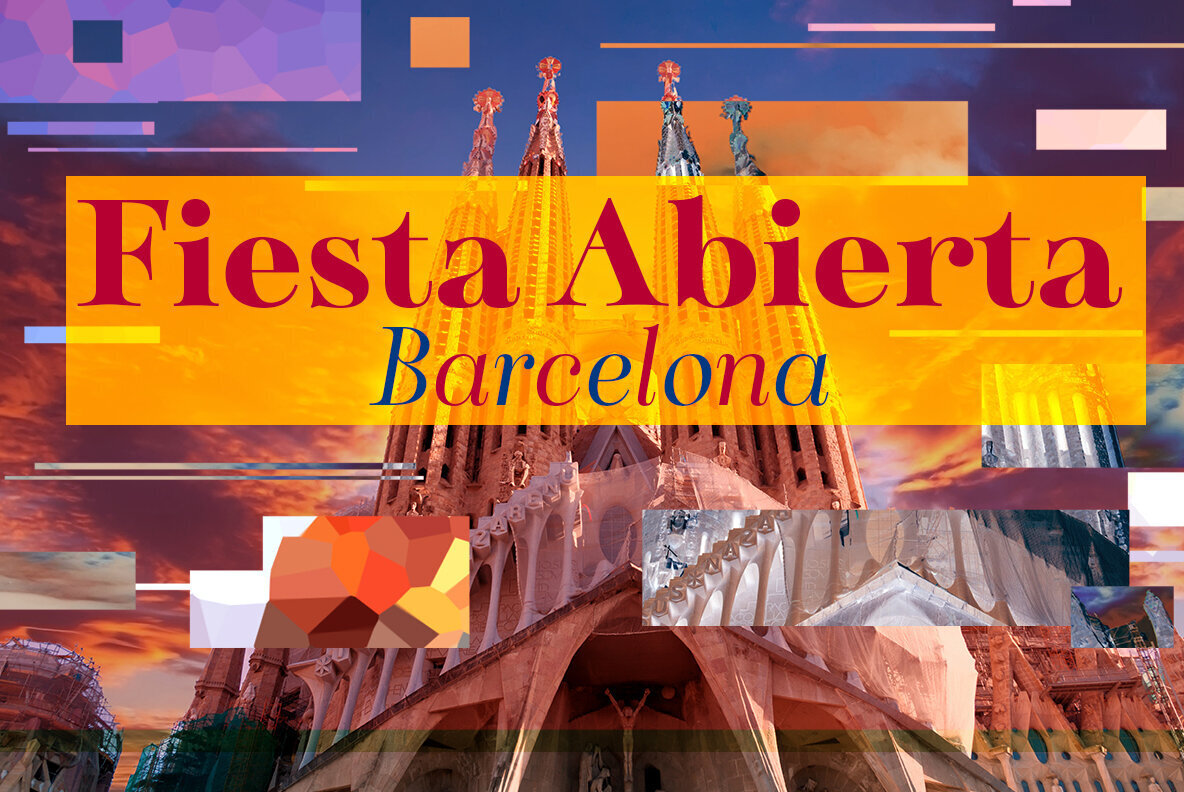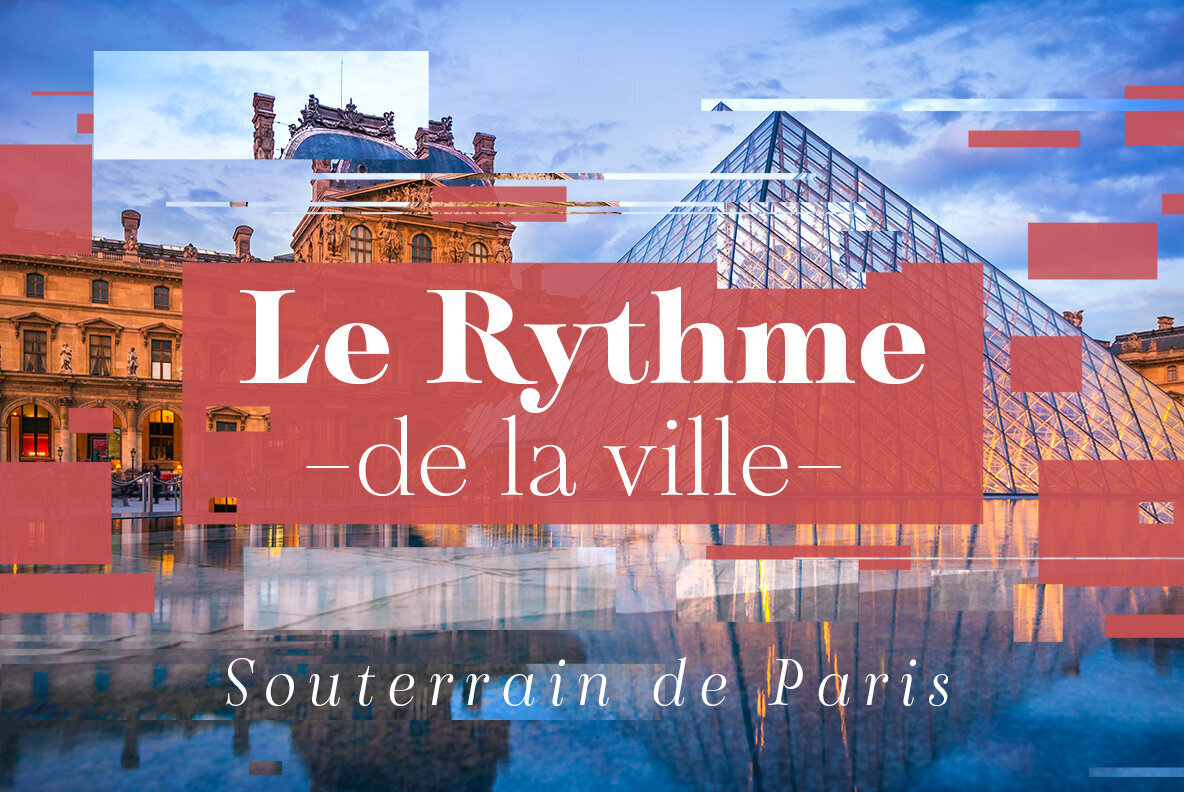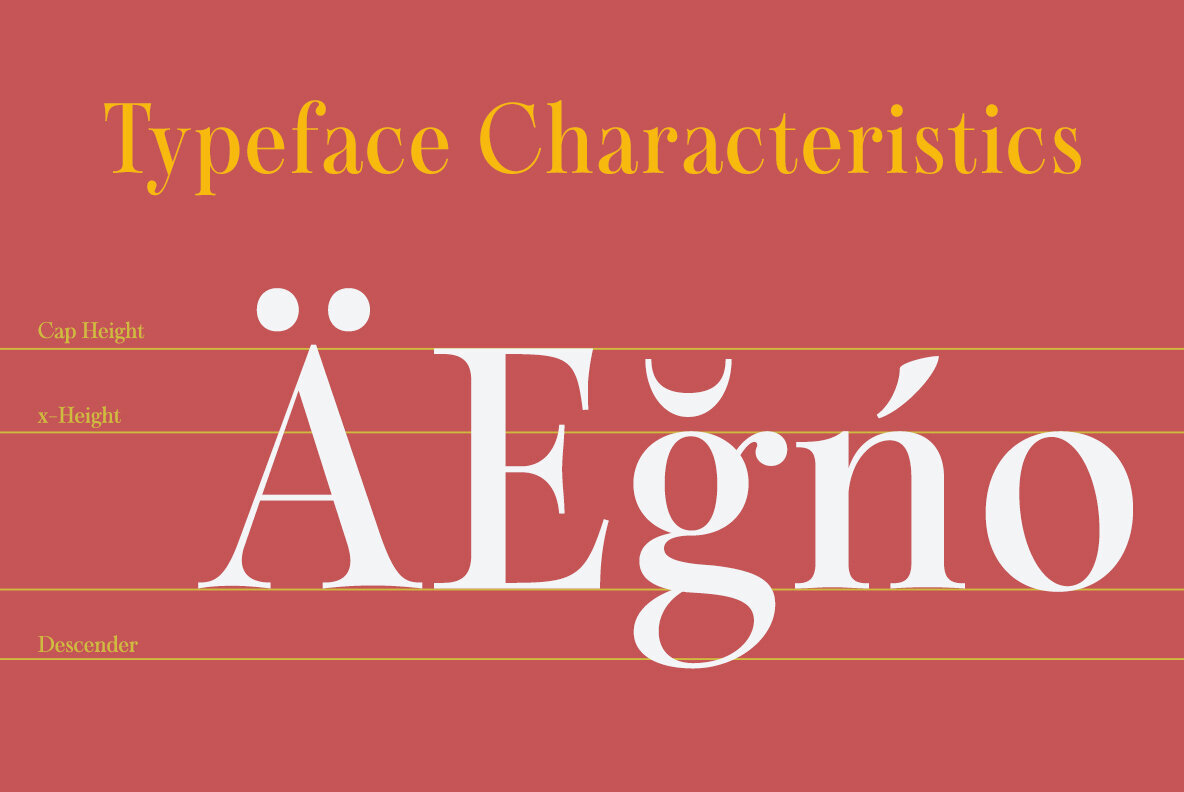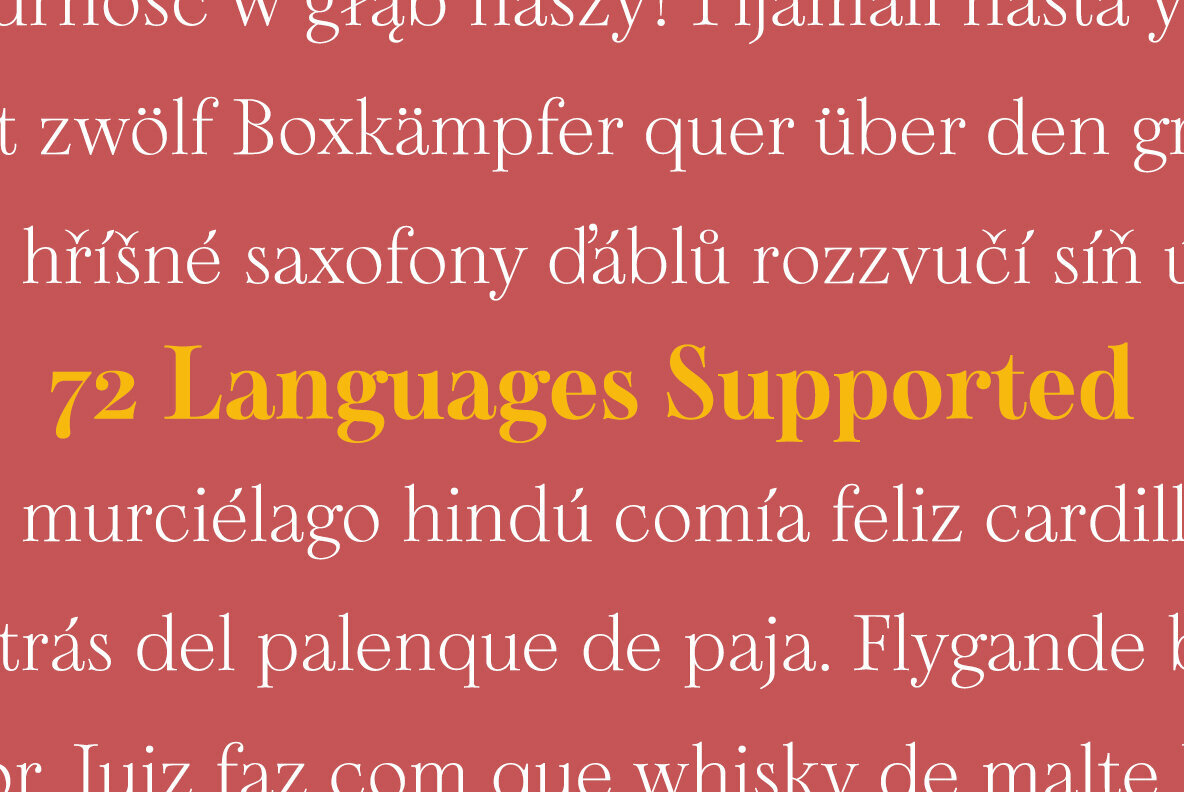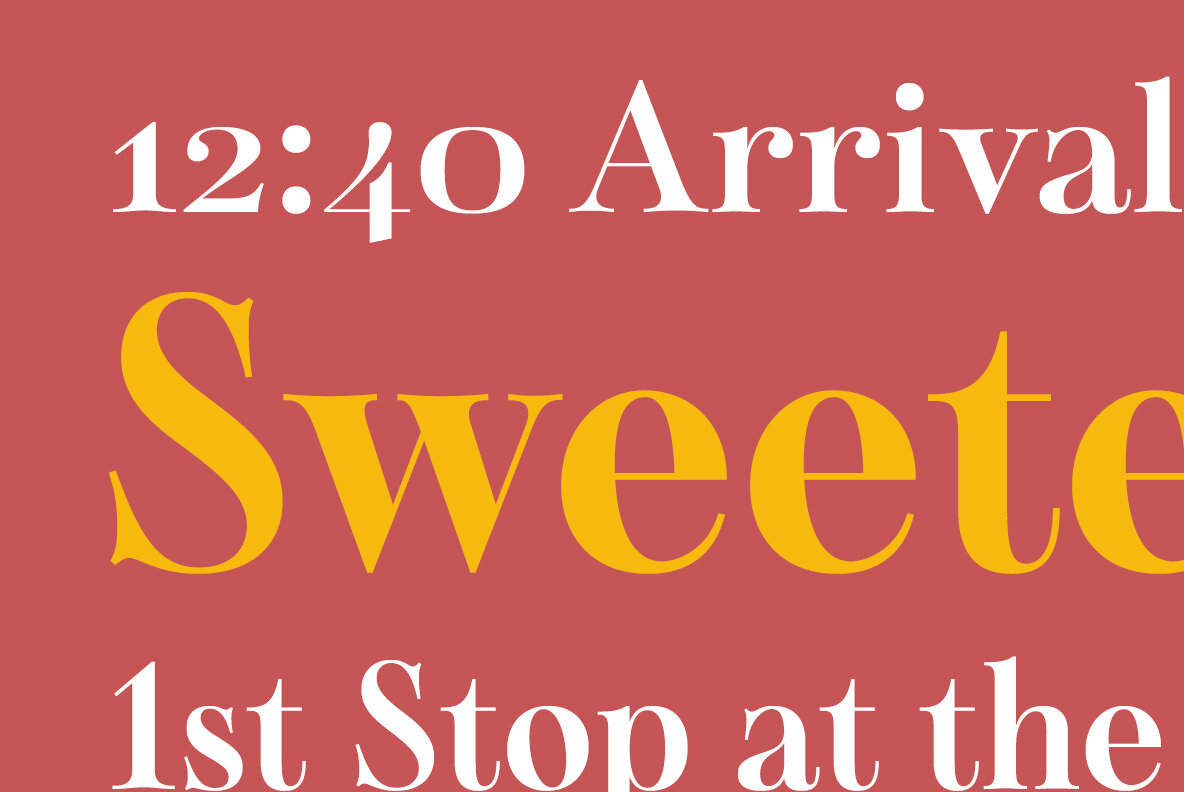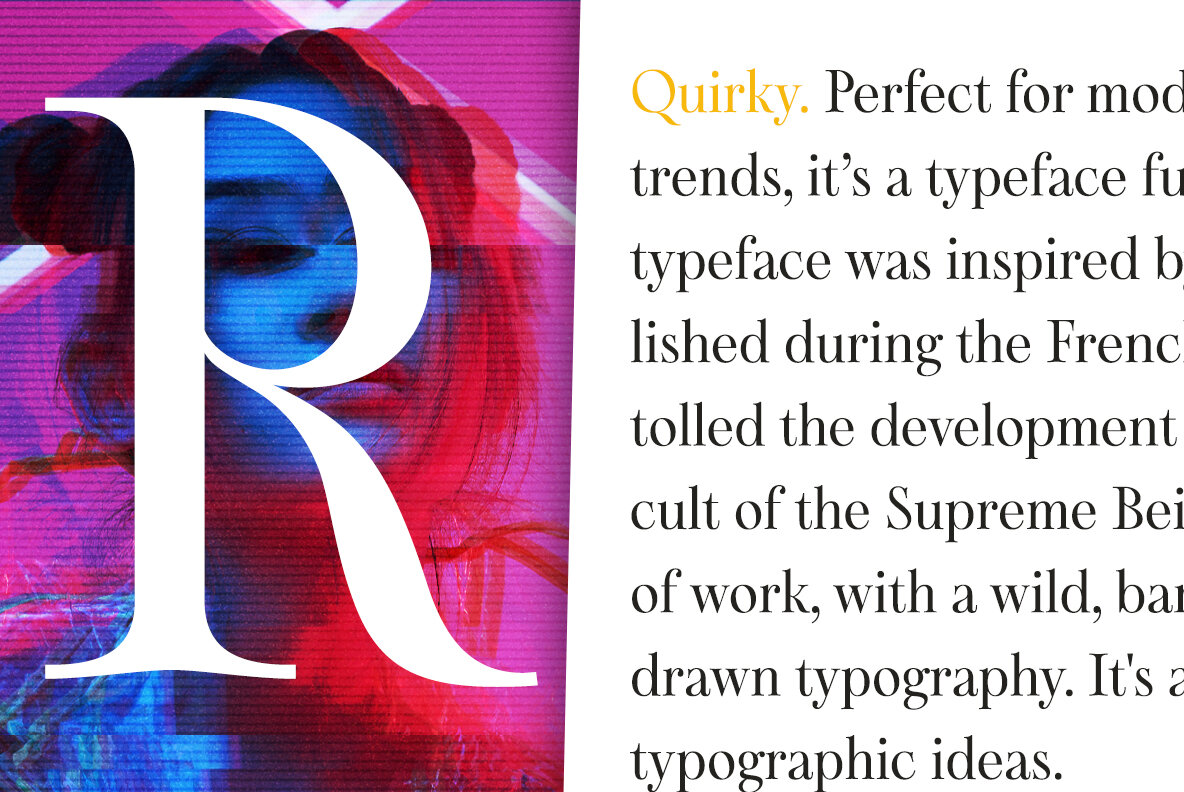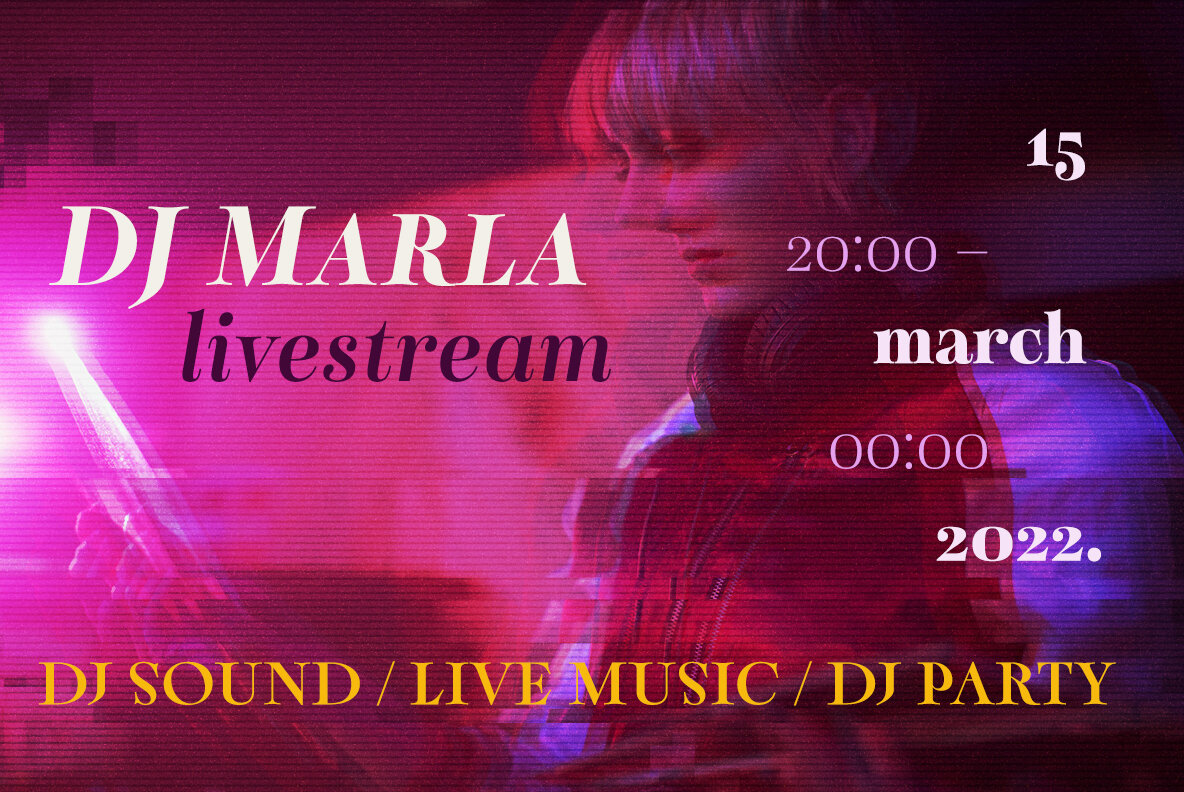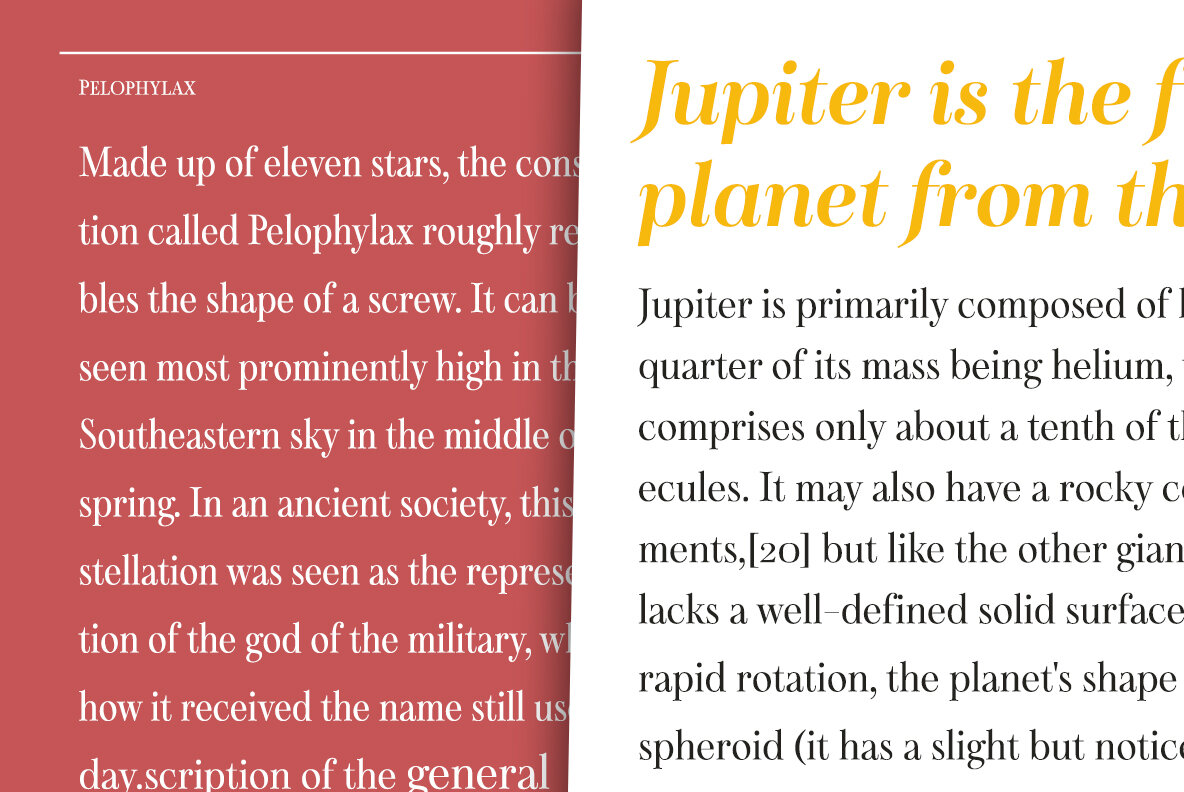
Sociato Font
This typeface is based on the hand lettering in the original manuscript, but it has been enhanced by adding a full variety of characters. The typeface comes with a comprehensive range of diacritics, including old-style figures. The typeface is suitable for a wide range of uses, including titles and headers, and it should look beautiful in any typographic setting.
Use Sociato to create a revolutionary identity, as bold and audacious as the French Revolution!